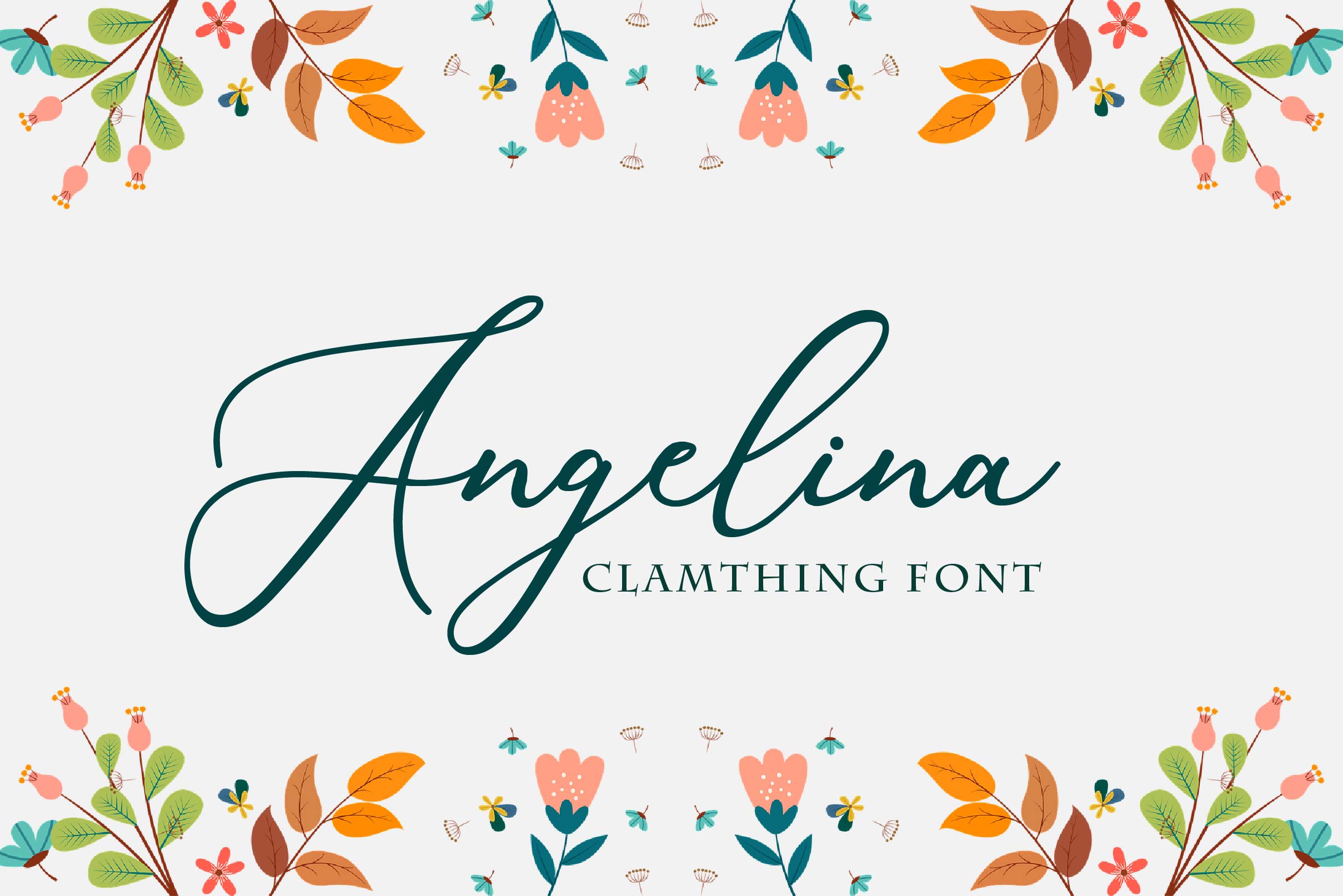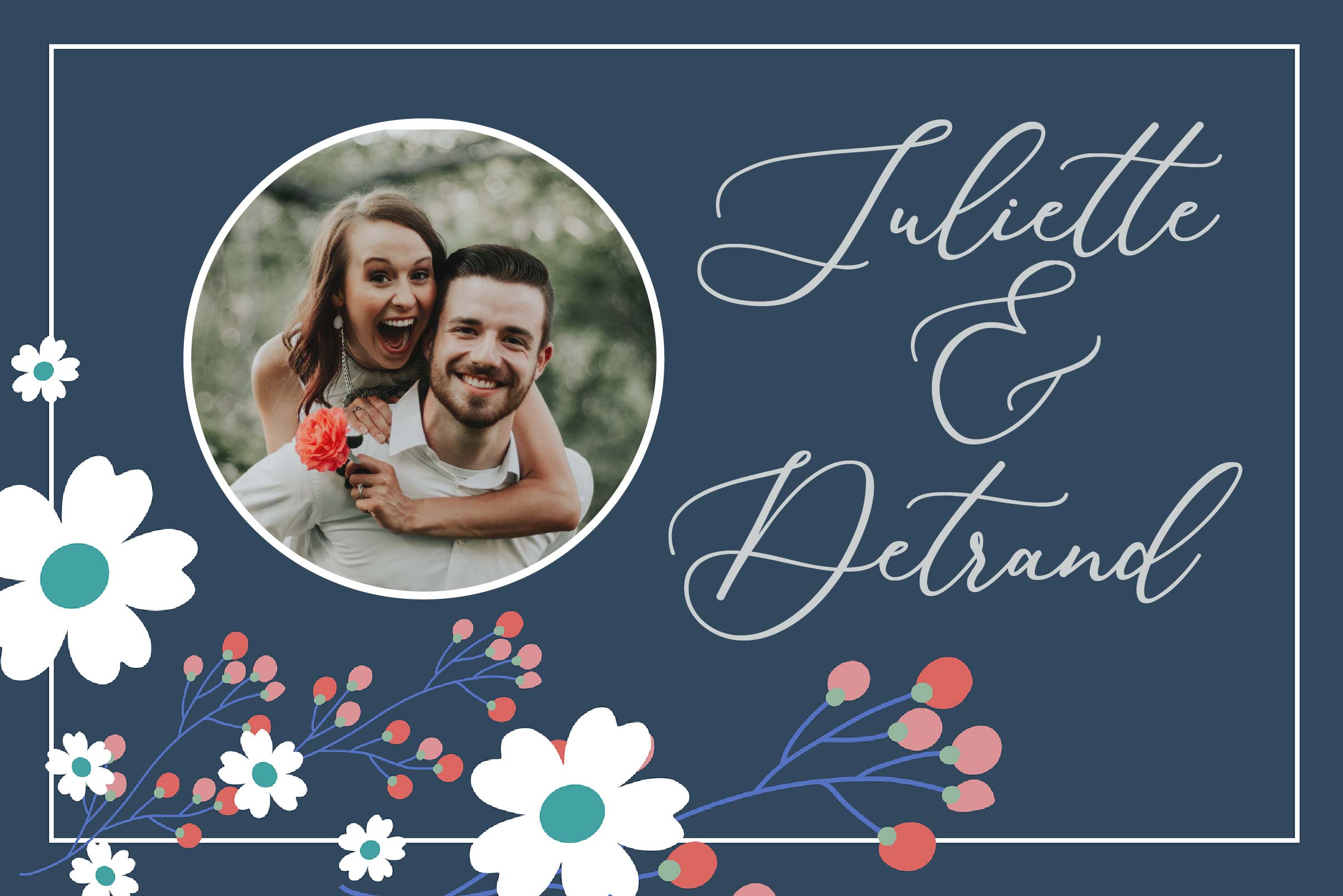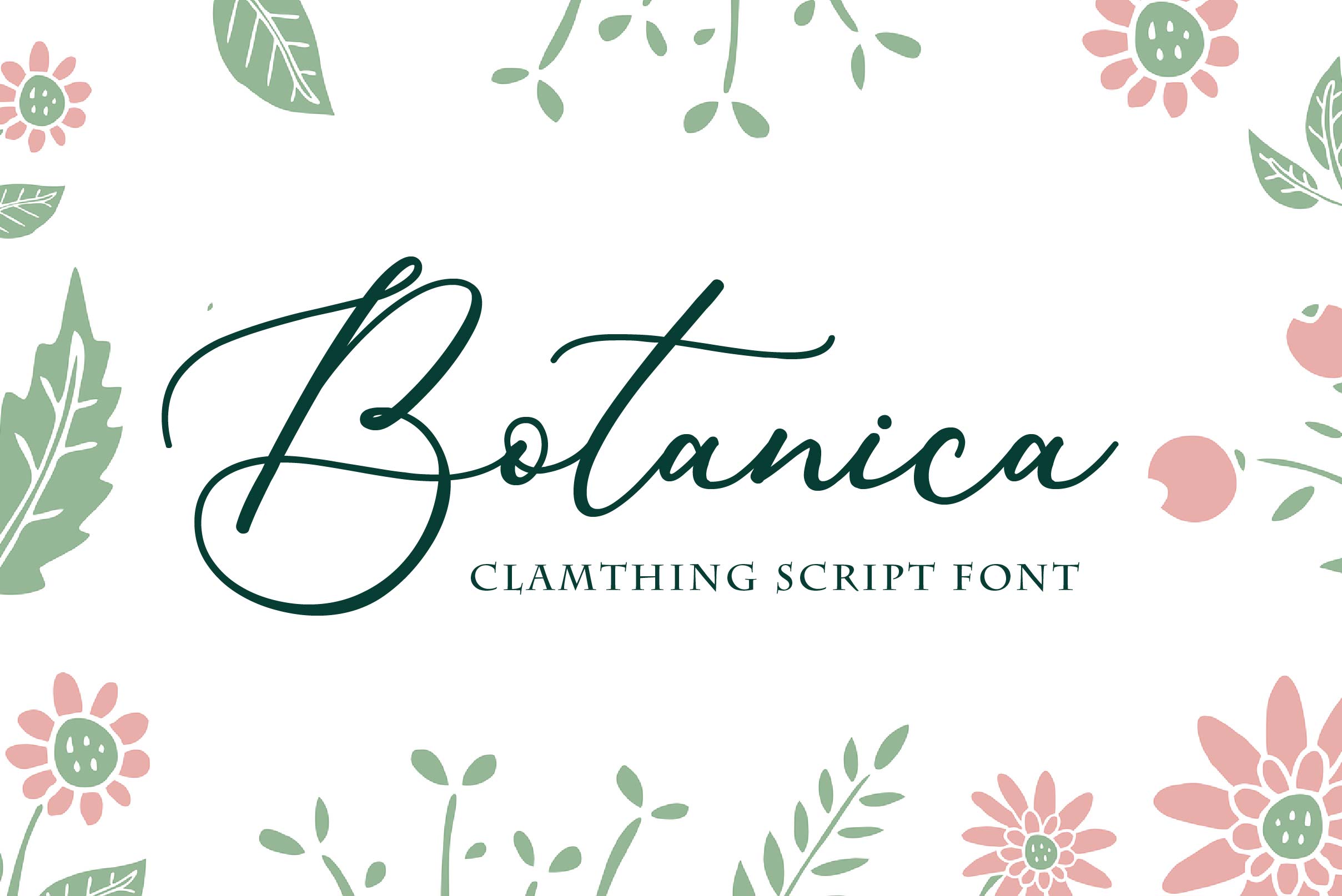
Clamthing Font
Clamthing Handwritten Font is a graceful script font that feels equally charming and elegant. It looks stunning on wedding invitations, thank you cards, quotes, greeting cards, logos, business cards, and every other design which needs a handwritten touch.